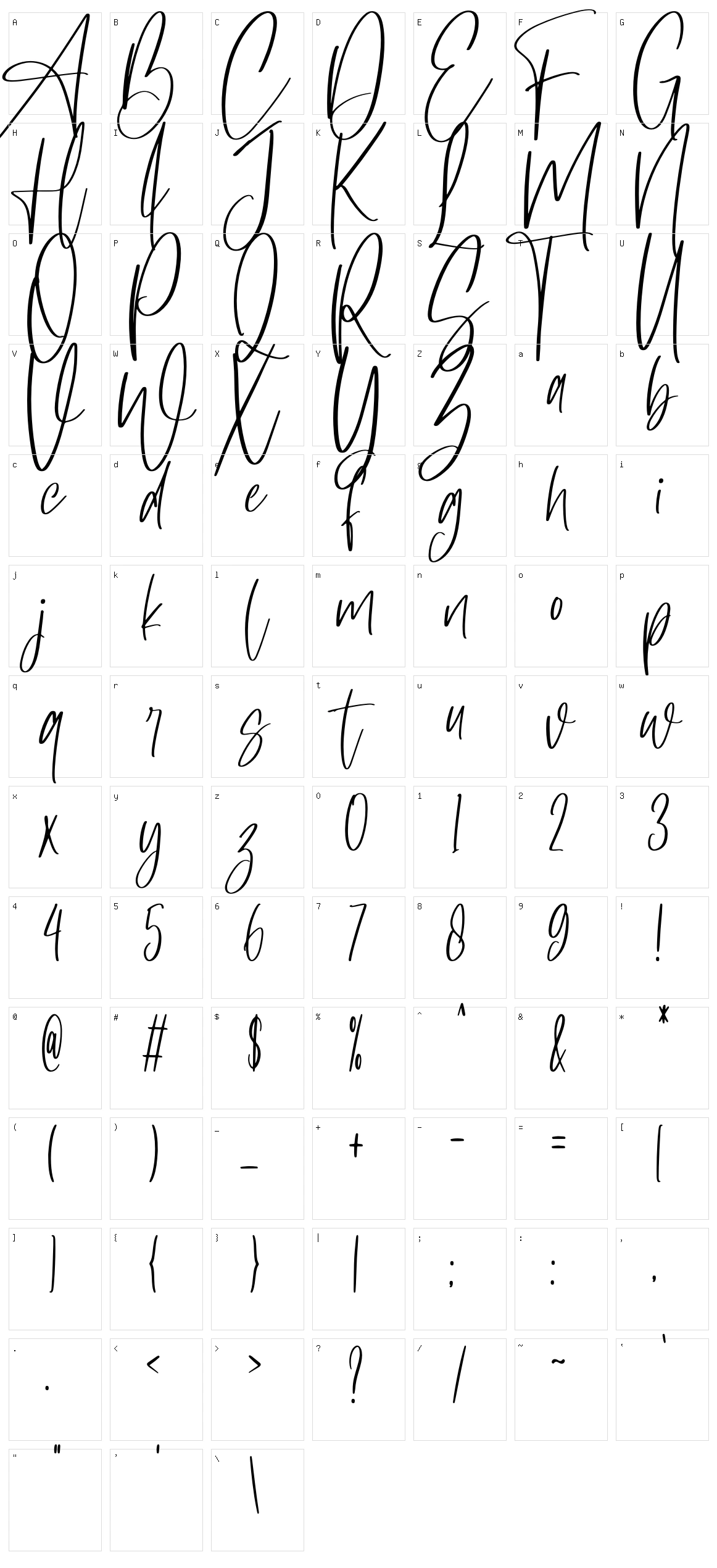
The free font Master of Magic is carefully designed by NJ Studio, showcasing a thoughtful balance of creativity and usability and falls under the Script font style. When you download the ZIP file, it contains only 59.99 KB of font files, making it lightweight and quick to download. Please review the license details below to understand permitted usage and distribution rights. If license information is not available, we recommend using this font for personal projects only or contacting the author directly for commercial usage permissions.